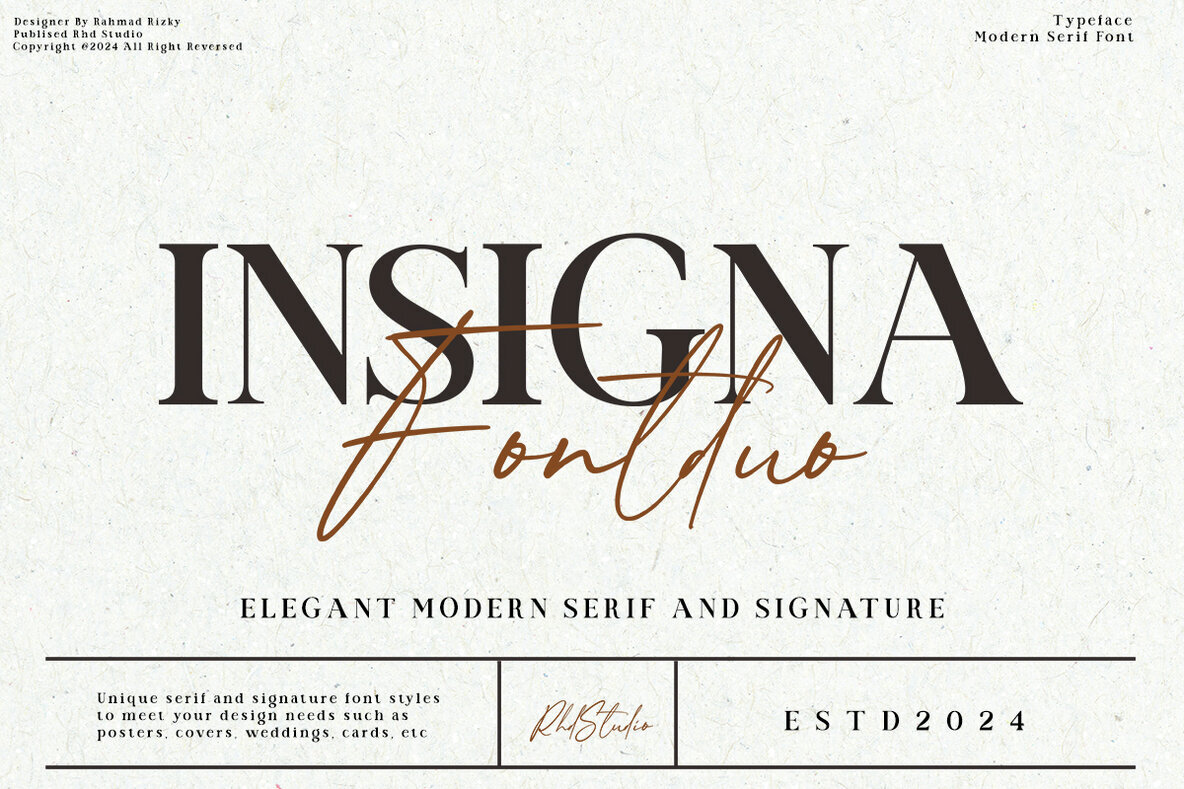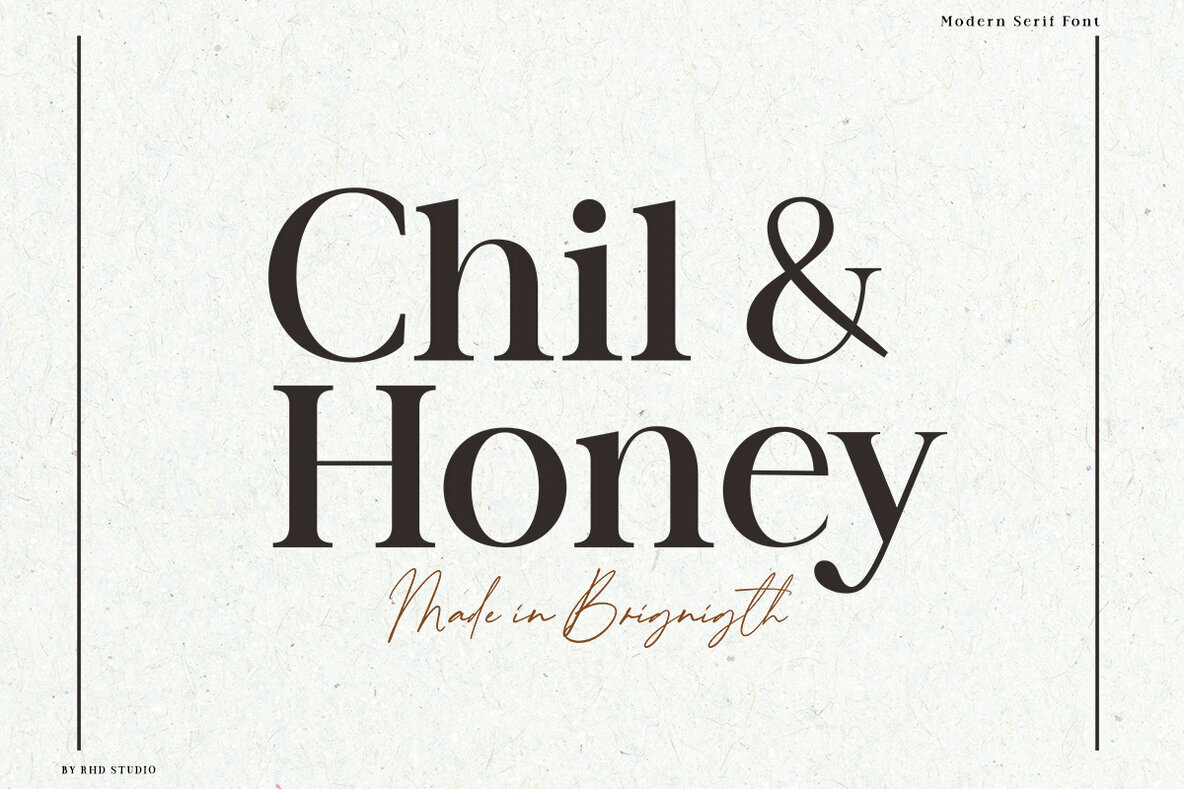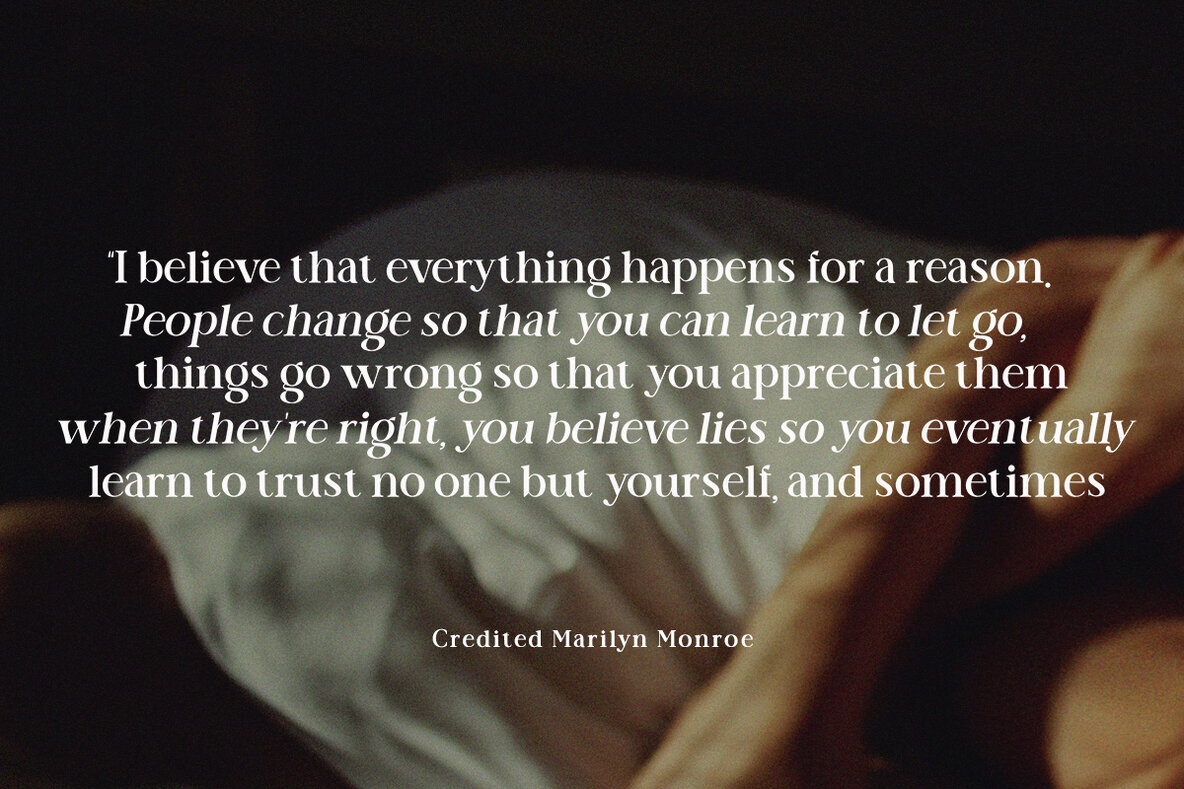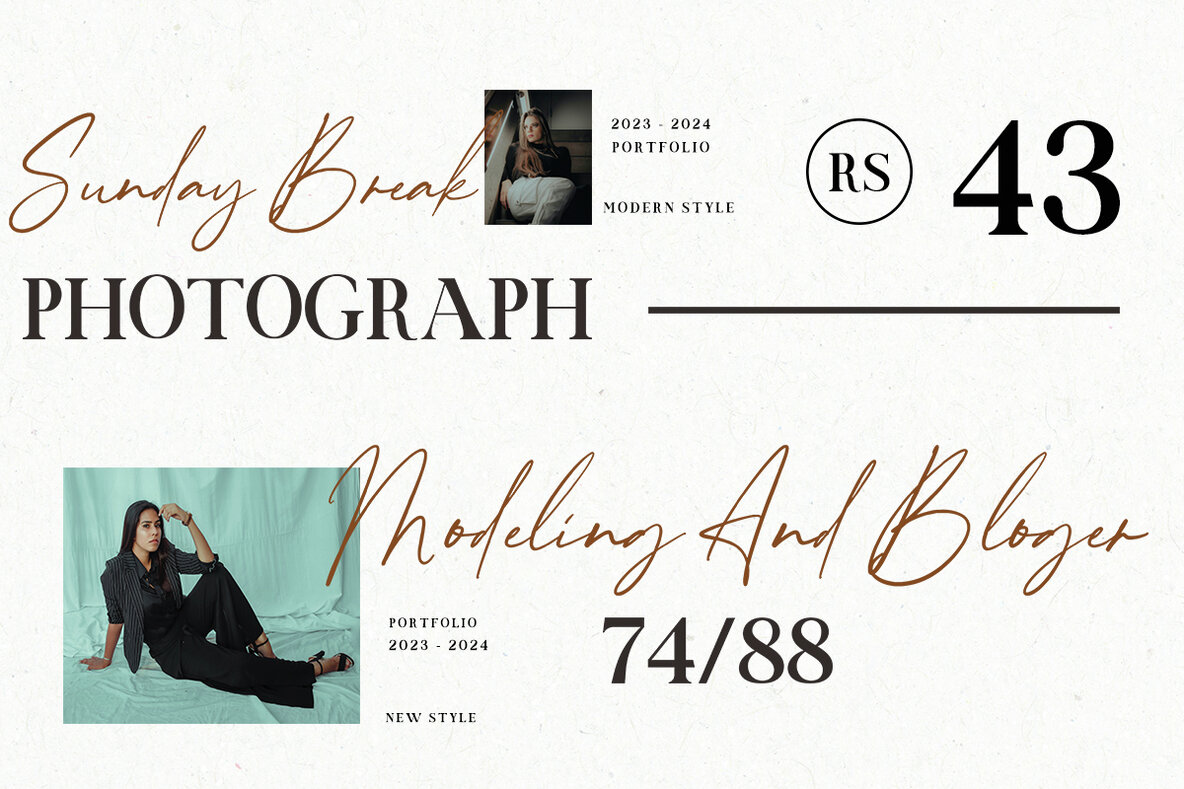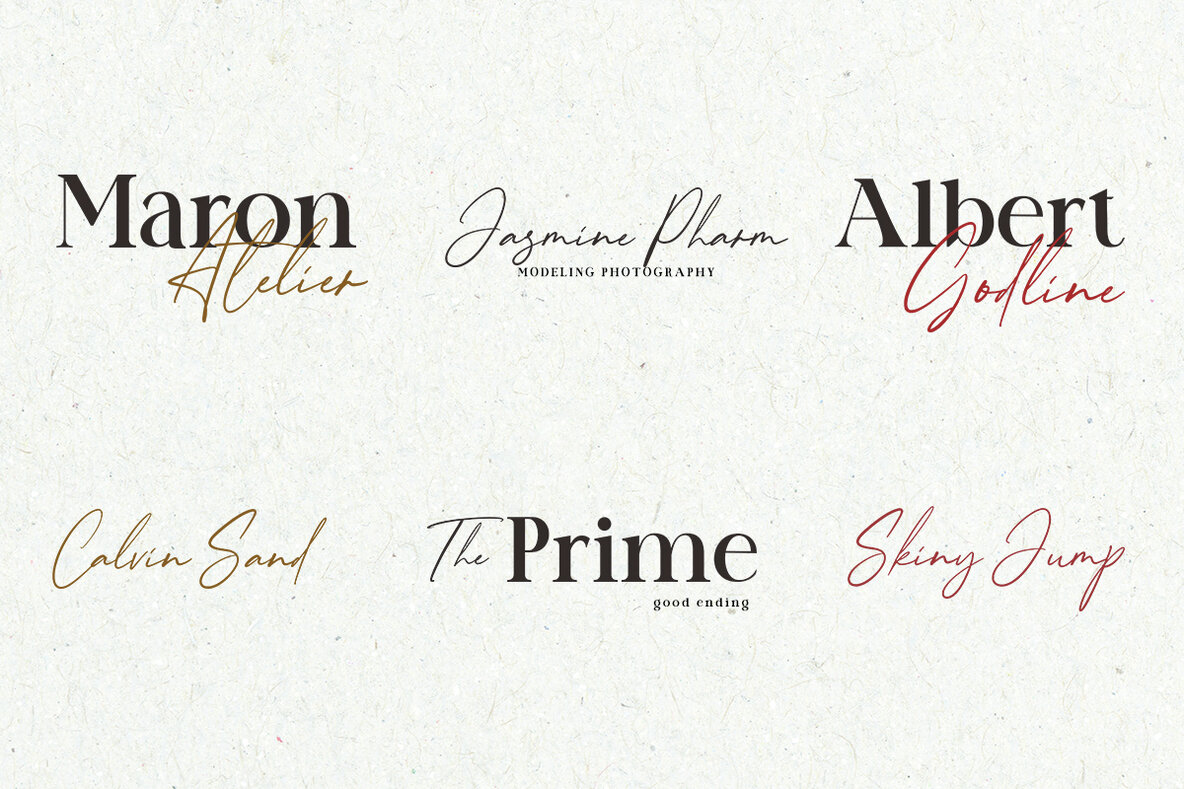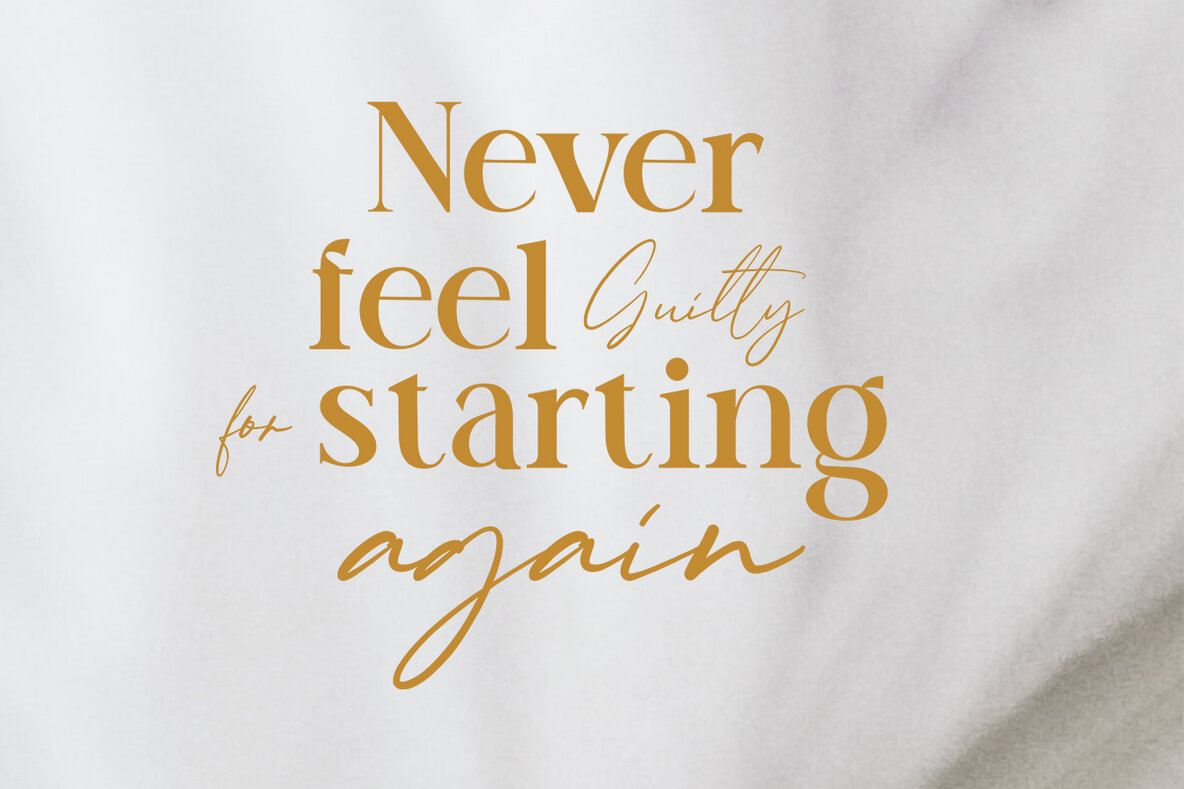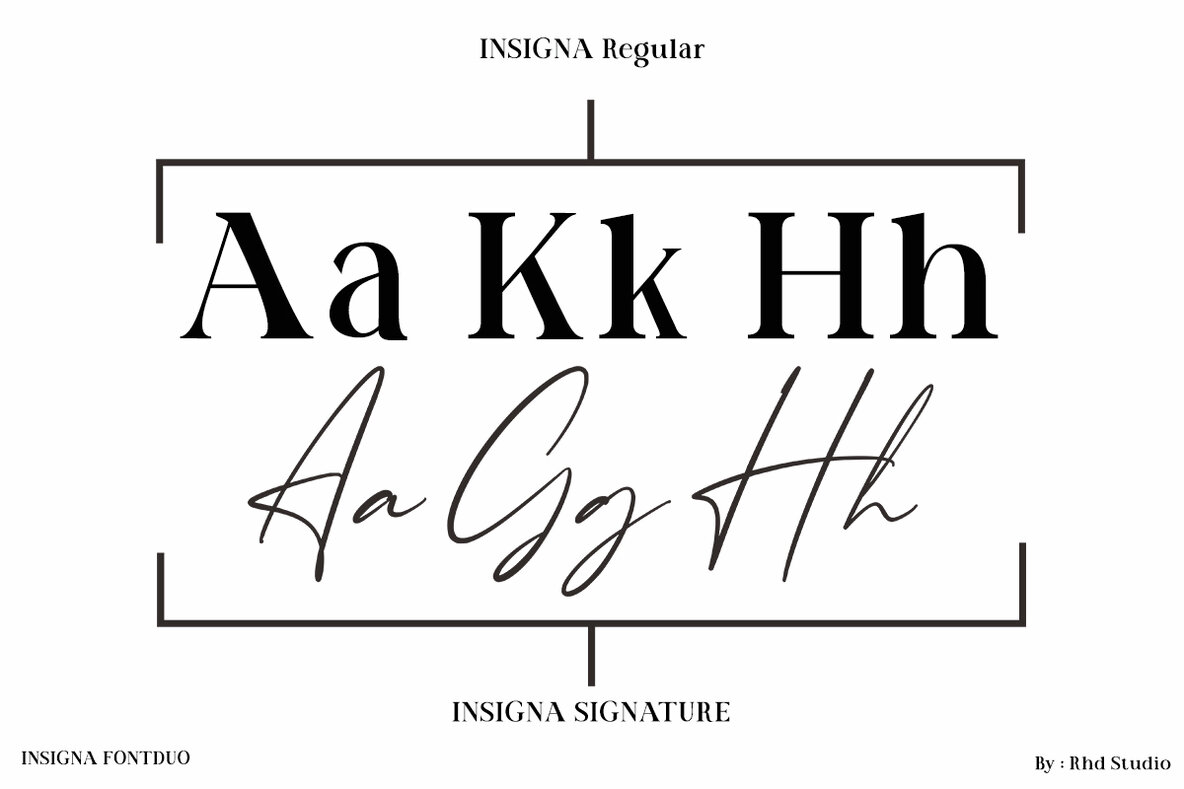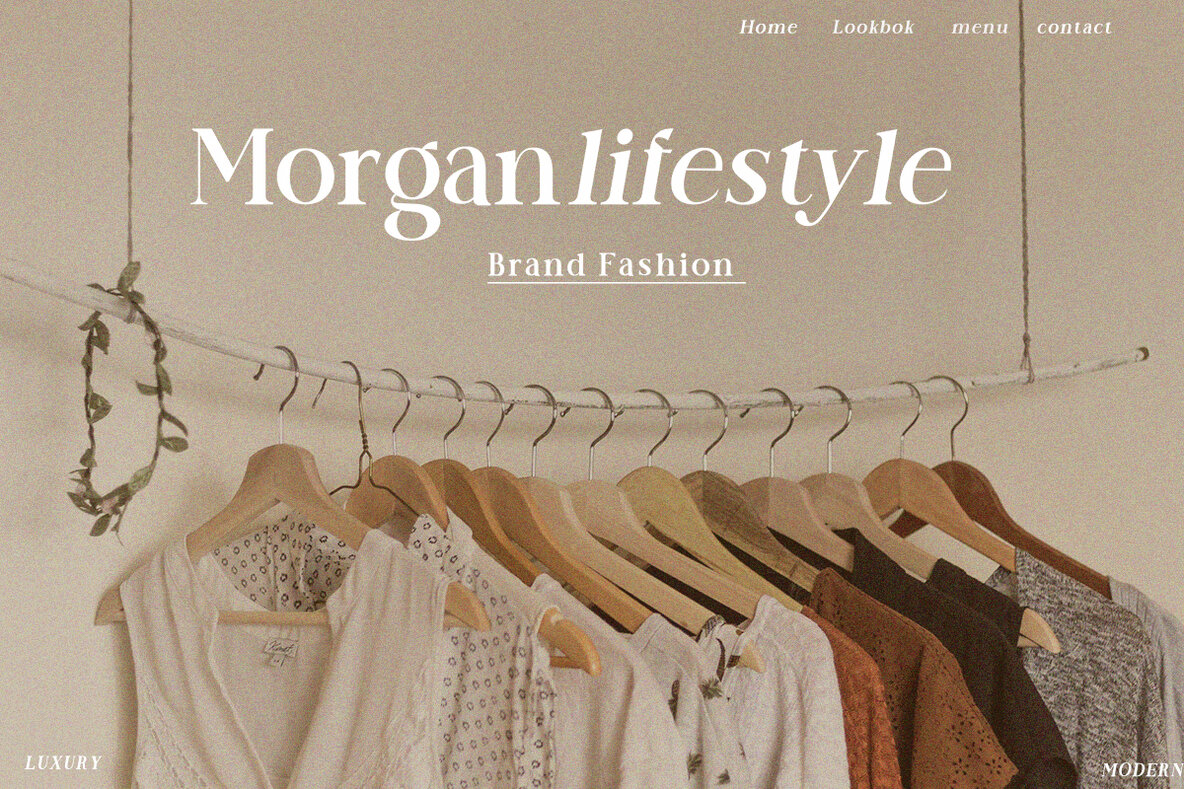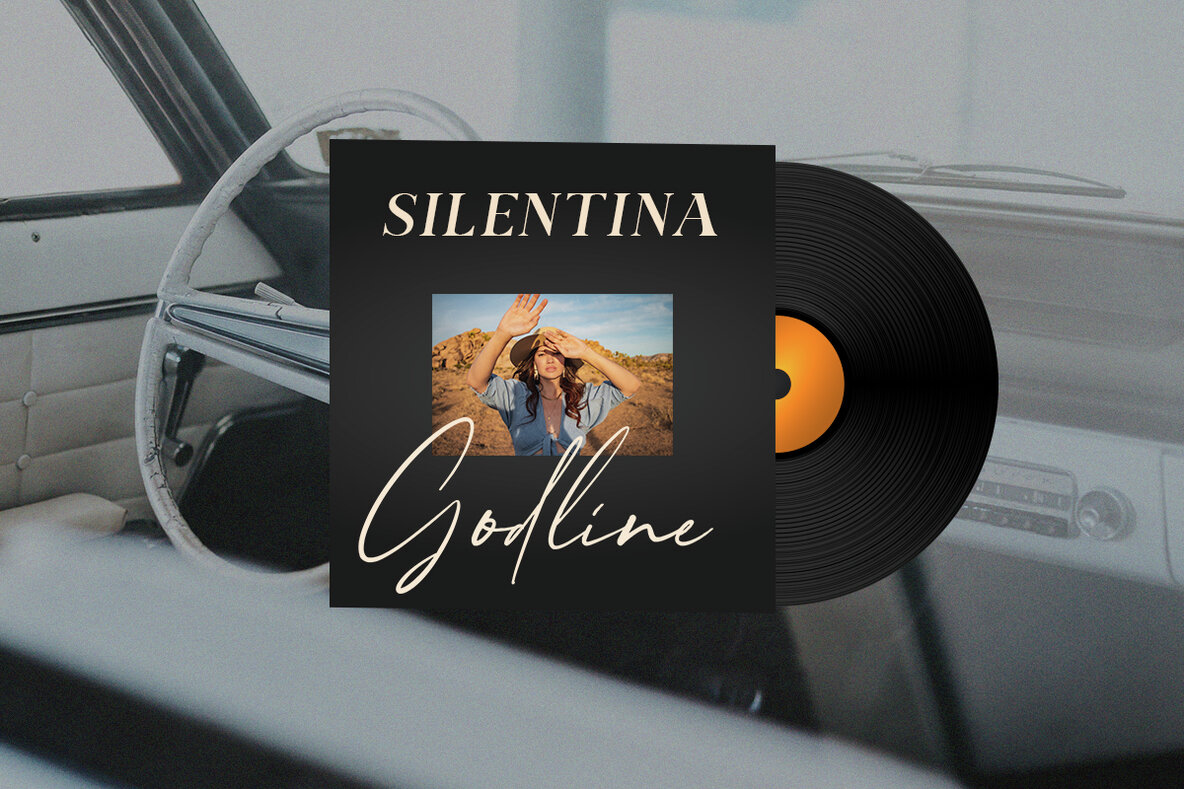
Insigna Fontduo
Insigna Regular
Insigna Signature
The Insigna Font Duo presents a unique blend of modern minimalism with a touch of inky sophistication. This font duo, comprising a sleek sans-serif and an elegant script, imparts a luxurious feel to various design projects. Whether it's websites, logos, brand identities, social media posts, or wedding stationery, Insigna enhances them with clear, sophisticated style. Say goodbye to the challenge of pairing fonts with Insigna Font Duo, where both sans and script fonts are crafted to harmonize perfectly.Insigna Font Duo: Minimalism Meets Elegance